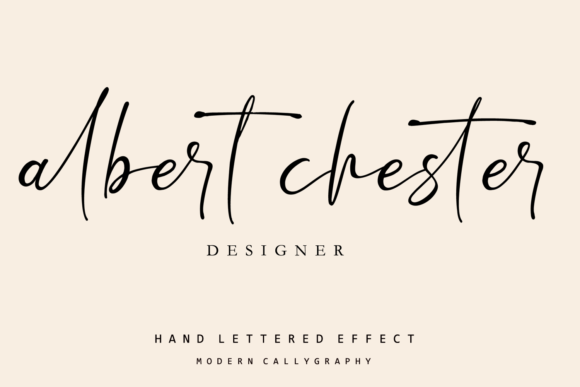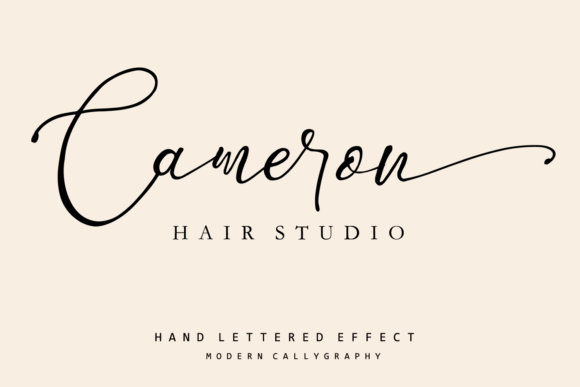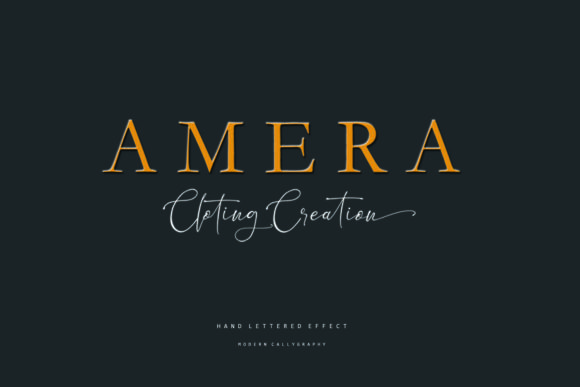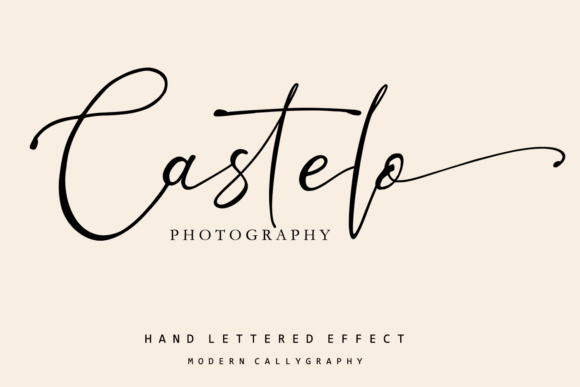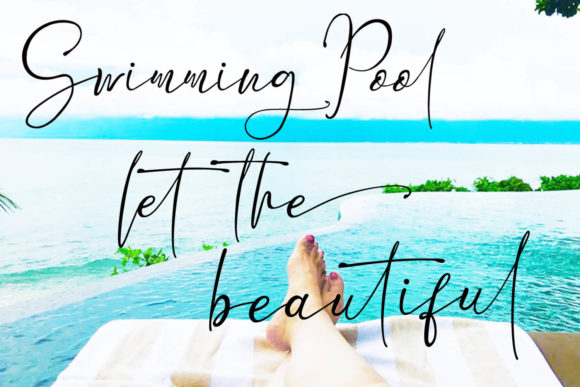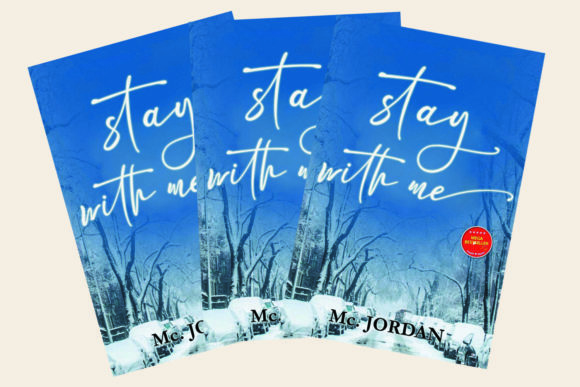
Introducing Callista Font: The Sweet and Beautiful Handwritten Font for Your Creative Projects
Are you a designer, crafter, or DIY enthusiast looking for a font that can add a touch of elegance and sweetness to your projects? Look no further than Callista Font! This beautiful handwritten font is perfect for a wide range of applications, from logos and branding to social media graphics and crafty DIY projects.
What Makes Callista Font So Special?
Callista Font is a clean and elegant handwritten font that is sure to capture the hearts of designers and crafters alike. Its sweet and beautiful design makes it perfect for projects that require a personal touch, such as:
- Logos and branding: Create a lasting impression with a custom logo that showcases your brand’s personality.
- Social media graphics: Add a touch of elegance to your social media posts and stories.
- Crafty DIY projects: Perfect for handmade crafts, such as knitting patterns, sewing projects, and more.
- Stationery and invitations: Create beautiful and unique stationery and invitations for special occasions.
Key Features of Callista Font
So, what makes Callista Font so versatile and easy to use? Here are some of its key features:
- Clean and elegant design: Callista Font features a clean and elegant design that is perfect for a wide range of applications.
- Handwritten style: This font has a beautiful handwritten style that adds a personal touch to any project.
- Easy to read: Despite its elegant design, Callista Font is easy to read, making it perfect for body text and headlines.
- Highly versatile: Callista Font can be used for a wide range of applications, from digital projects to print materials.
How to Use Callista Font in Your Projects
Using Callista Font in your projects is easy! Here are some tips to get you started:
- Pair it with other fonts: Callista Font pairs well with other fonts, such as sans-serif fonts and script fonts.
- Experiment with colors: Try out different colors and color combinations to find the perfect look for your project.
- Use it for headlines and body text: Callista Font is perfect for both headlines and body text, making it a great all-around font for your projects.
Why Designers and Crafters Love Callista Font
So, why do designers and crafters love Callista Font? Here are some reasons:
- Unique and creative: Callista Font is a unique and creative font that can help you stand out from the crowd.
- Elegant and sophisticated: This font has an elegant and sophisticated design that is perfect for high-end projects.
In conclusion, Callista Font is a sweet and beautiful handwritten font that is perfect for designers, crafters, and DIY enthusiasts. Its clean and elegant design makes it versatile and easy to use, and its highly versatile nature makes it perfect for a wide range of applications. Whether you’re looking to create a custom logo, social media graphics, or crafty DIY projects, Callista Font is the perfect choice.